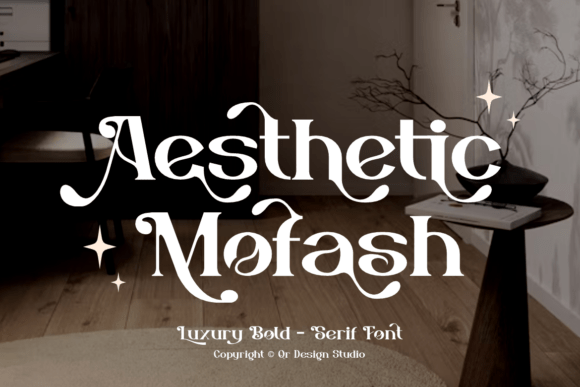
Aesthetic Mofash Font: Elevate Your Design with Luxury and Elegance
In the world of typography, few fonts manage to strike a balance between elegance and playfulness. Aesthetic Mofash, a luxury bold serif display font, is one such exceptional find. It seamlessly blends fashion-house sophistication with a dash of sparkle, making it perfect for designs that demand attention and exude glamour.
The Unique Characteristics of Aesthetic Mofash
Aesthetic Mofash is distinguished by its high contrast strokes that carve confident verticals. These strokes are not just visually striking but also contribute to the font’s readability, especially in larger sizes. The smooth bracketed serifs are another notable feature, blossoming into petal-like flares that add a touch of softness and elegance to the overall design.
Swirling Entry and Exit Strokes
One of the most captivating aspects of Aesthetic Mofash is its swirling entry and exit strokes. These strokes weave through the forms of the letters, finishing in rounded ball terminals that echo the star accents. This design element introduces a playful yet sophisticated vibe, making the font suitable for a wide range of applications, from logos and editorial titles to packaging and invitations.
Open and Airy Design
The font features open bowls and a generous x-height, which keep words looking airy and easy to read. This is particularly beneficial for body text and longer content, where readability is key. Additionally, the compact descenders and tight rhythm of Aesthetic Mofash create a poster-ready impact, making it an excellent choice for headlines and titles where you want to make a statement.
The Texture and Feel of Aesthetic Mofash
The texture of Aesthetic Mofash feels decidedly chic yet dramatic. This unique blend makes it ideal for designs where you want to convey glamour without stiffness. Whether you’re working on a luxury brand’s logo, an editorial piece, packaging for a high-end product, or an invitation to an exclusive event, Aesthetic Mofash brings the right amount of sophistication and flair.
Versatility in Use
Aesthetic Mofash’s versatility is one of its strongest assets. You can track it slightly tight to achieve a sumptuous density, perfect for filling large spaces or creating a bold statement. Alternatively, giving it some air allows you to showcase the sweeping terminals and intricate details of the font, adding a level of drama and elegance to your design.
Application in Various Design Projects
This font’s adaptability makes it suitable for a myriad of design projects:
- Logos: For luxury brands that want to stand out with a bold yet elegant signature.
- Editorial Titles: Adds a touch of glamour to magazine covers, article titles, and editorial spreads.
- Packaging: Elevates product packaging with a sophisticated and high-end feel.
- Invitations: Perfect for wedding invitations, event invites, or any formal announcement that requires elegance.
Tips for Using Aesthetic Mofash
To make the most out of Aesthetic Mofash, consider the following tips:
- Experiment with Tracking: Slightly tight tracking can add density and luxury feel, while looser tracking can showcase the font’s elegant details.
- Play with Sizes: Use Aesthetic Mofash in larger sizes to highlight its intricate details and dramatic flair.
- Combine with Simpler Fonts: Pair Aesthetic Mofash with simpler, more straightforward fonts for body text to create contrast and visual interest.
Aesthetic Mofash is more than just a font; it’s a statement piece for your design. With its luxury bold serif display, it brings an unmatched level of elegance and playfulness to any project. Whether you’re aiming for chic sophistication or dramatic flair, Aesthetic Mofash provides the perfect blend of both, making it an indispensable tool in your typography arsenal.